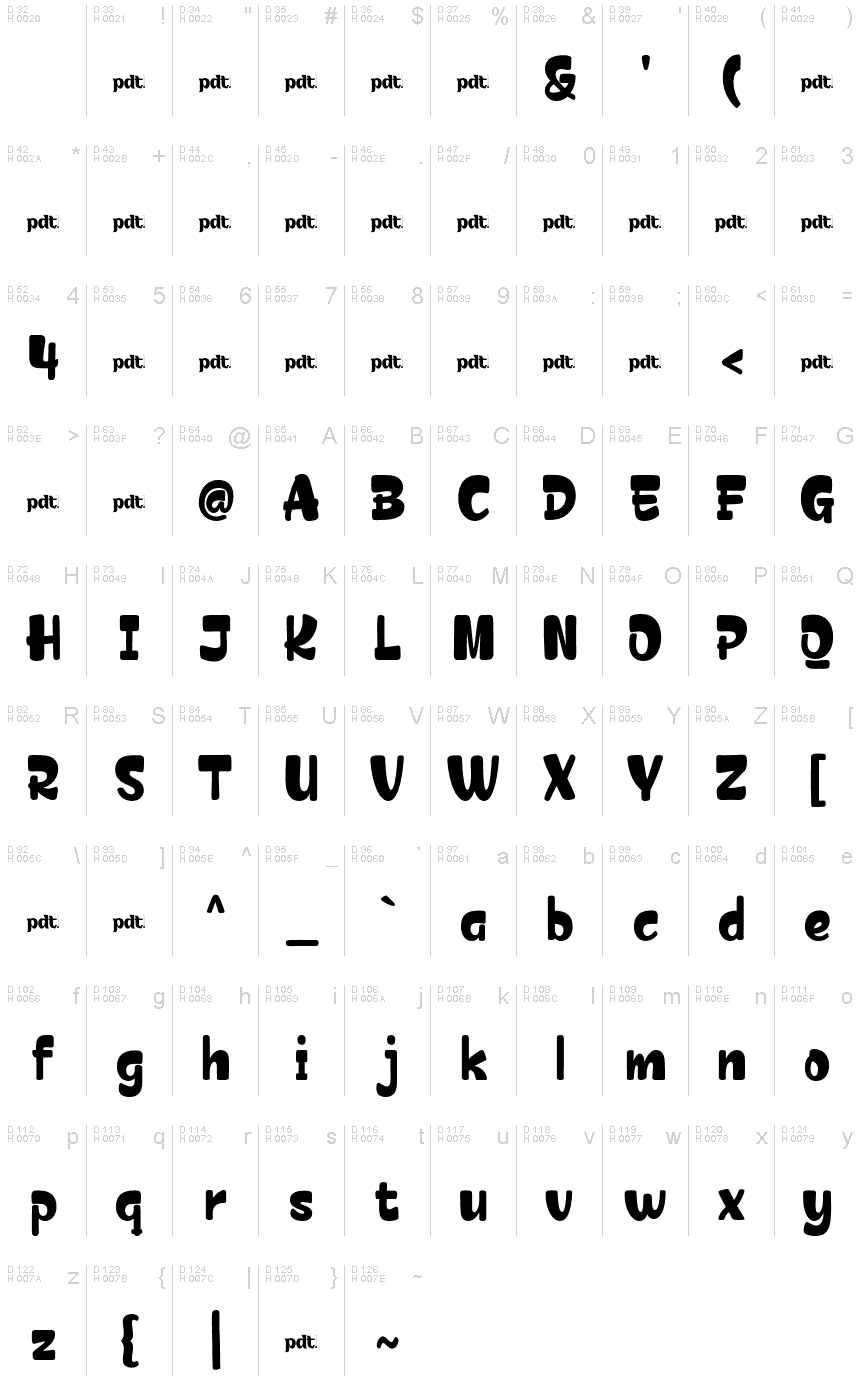
AREKOYPERSONALUSE-Regular
Arekoy, the brainchild of Rozi from Twinletter, is a captivating display font that injects a playful touch into your projects.
With its extra-bold weight, Arekoy is perfect for creating eye-catching headlines and attention-grabbing logos. Its cartoon style adds a whimsical charm to children's books, comic strips, and animated videos. Let Arekoy’s vibrant curves and bouncy letterforms bring life to your designs, whether it's for branding campaigns, packaging design, or social media content.
Unleash your creativity with Arekoy and infuse your projects with a delightful dose of fun!